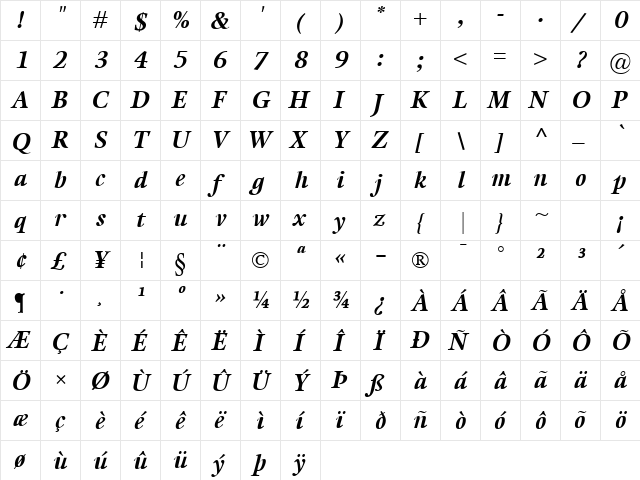
Kalix BoldItalic
Design Context for Kalix Typeface
Kalix offers clean, dependable letterforms without strong stylistic allegiance, making it a practical choice for designers who need flexibility. The slanted form adds forward momentum and visual energy. The heavy weight commands attention and anchors typographic hierarchies.
Pro Tip: Use Kalix for emphasis, pull quotes, and subheadings where its slanted energy can add rhythm to the layout.